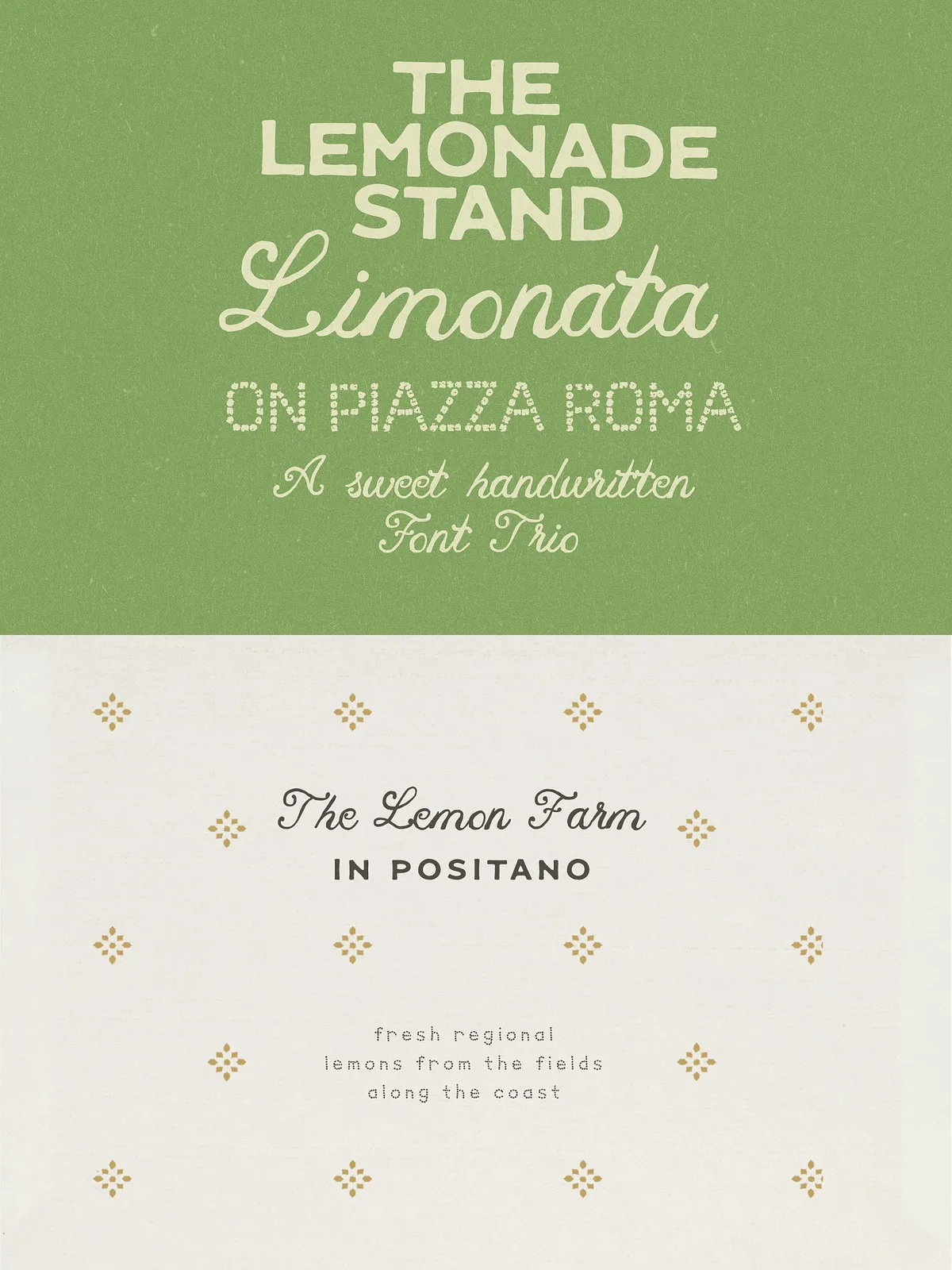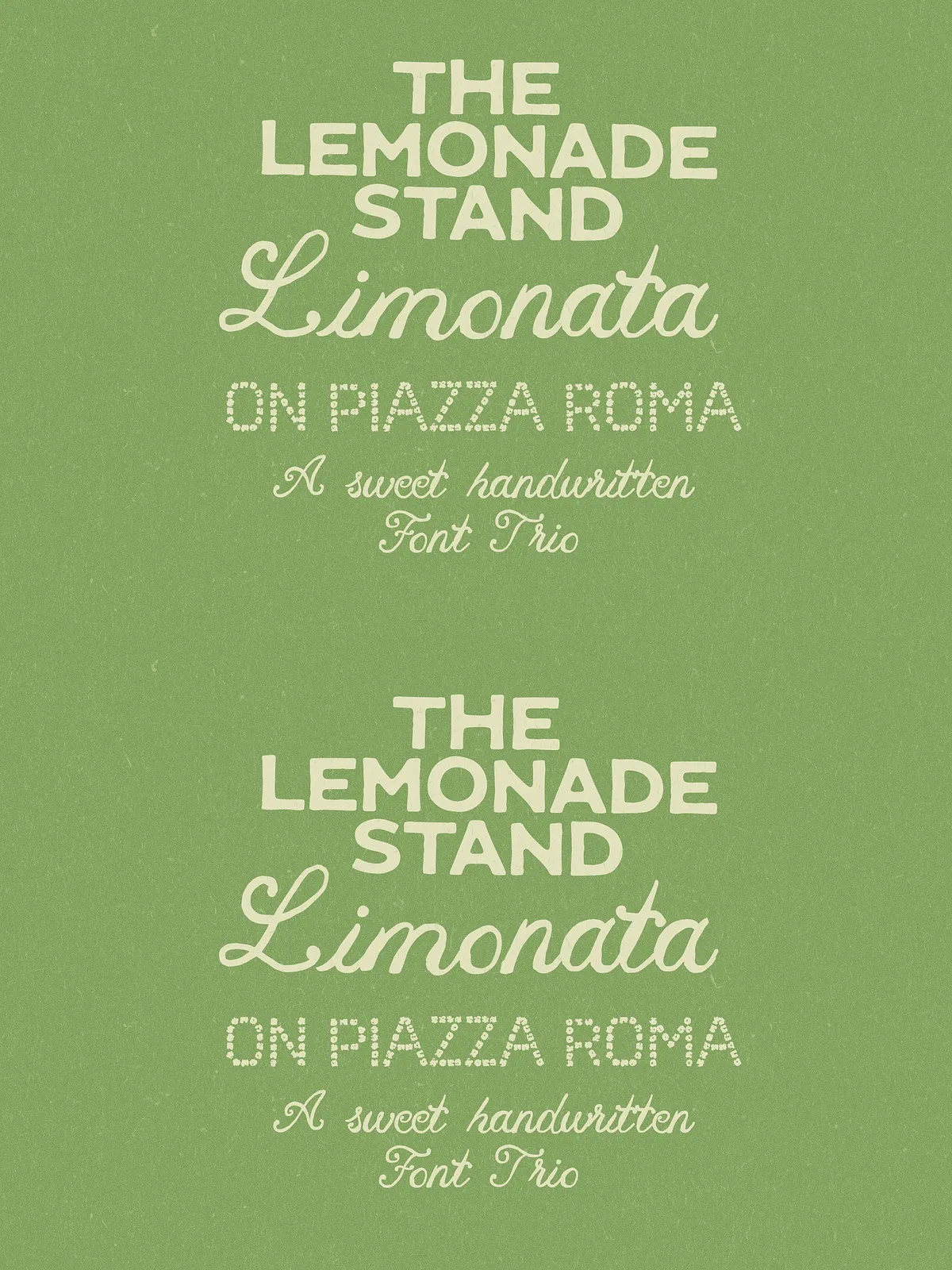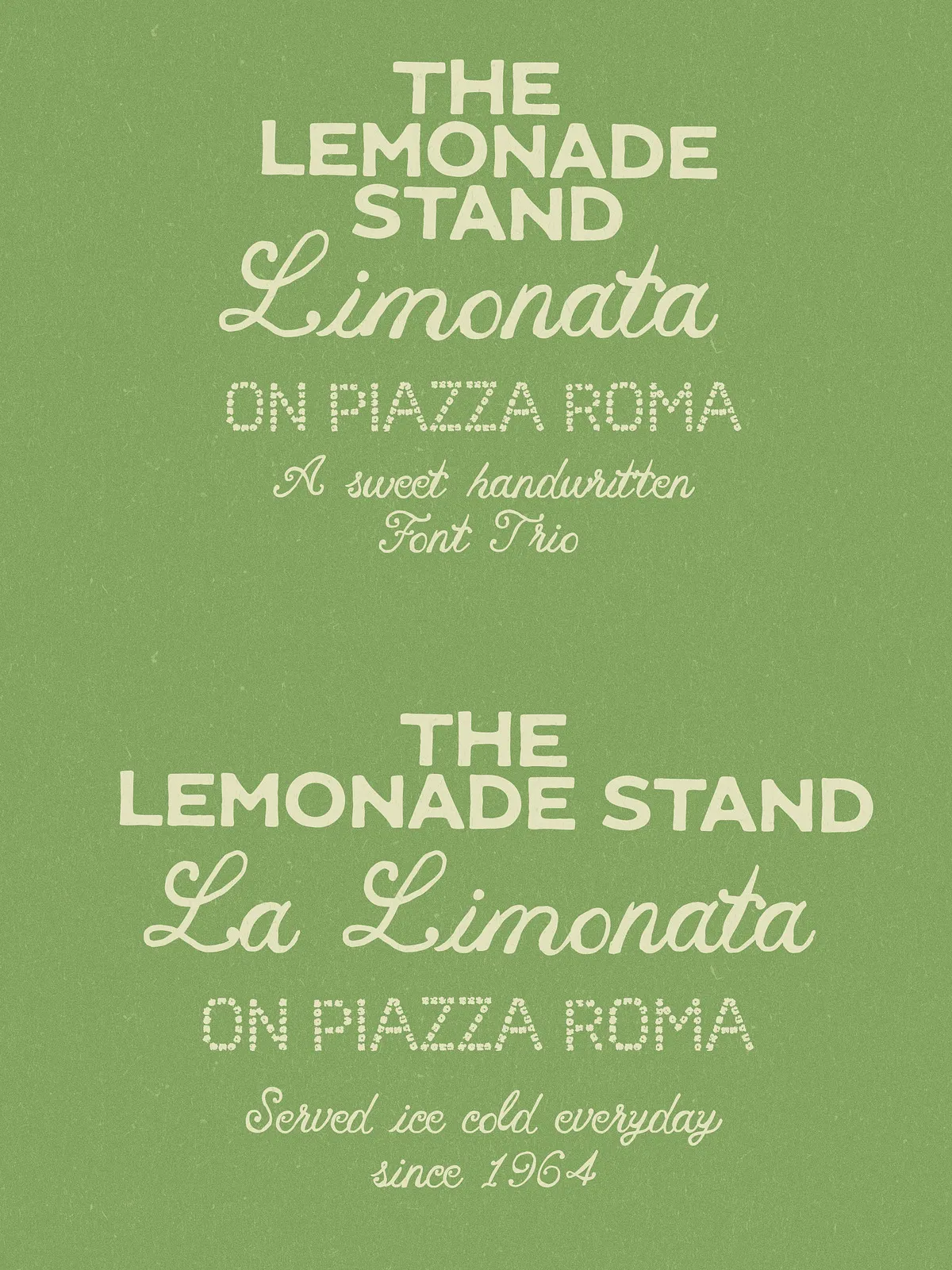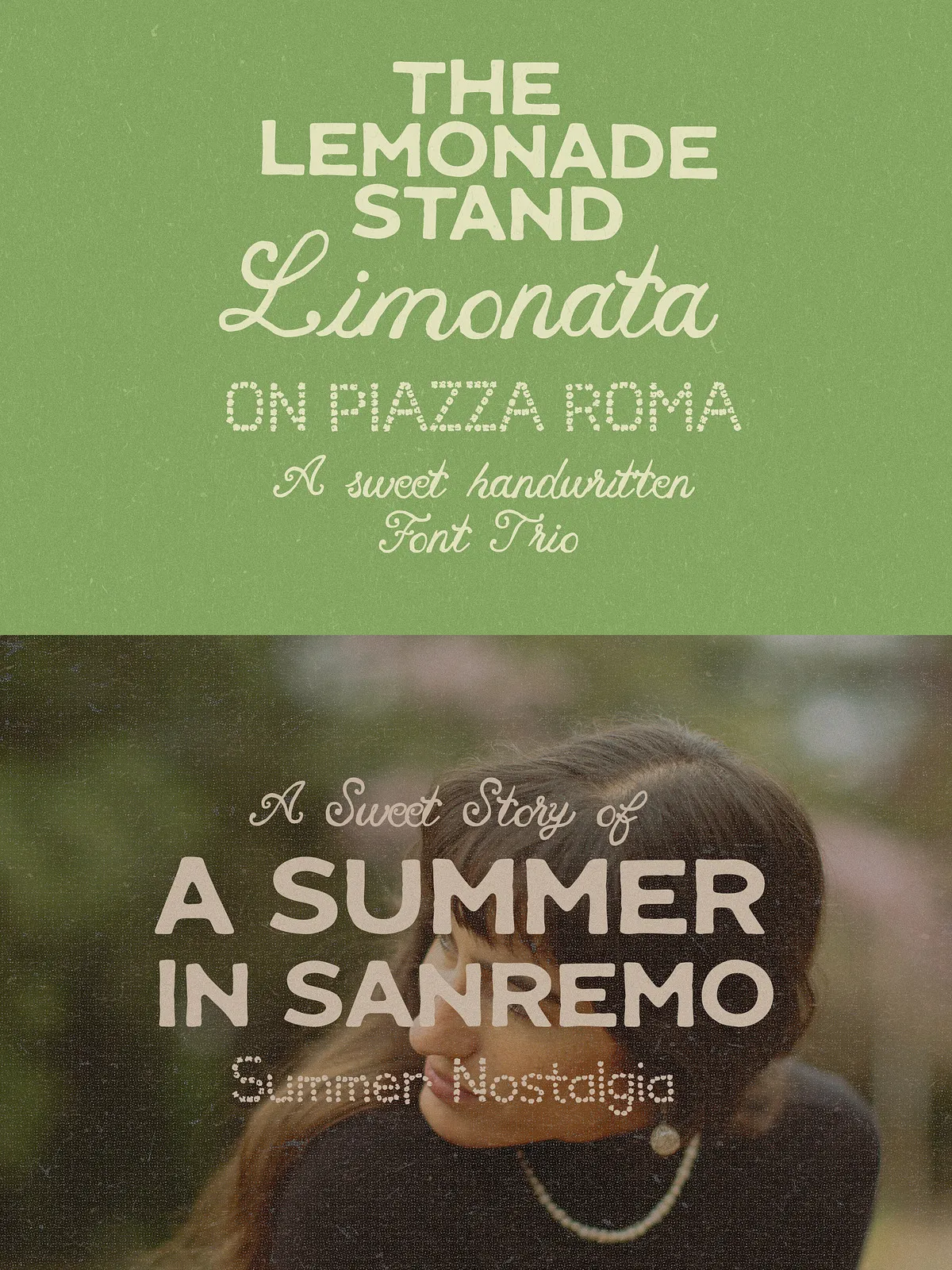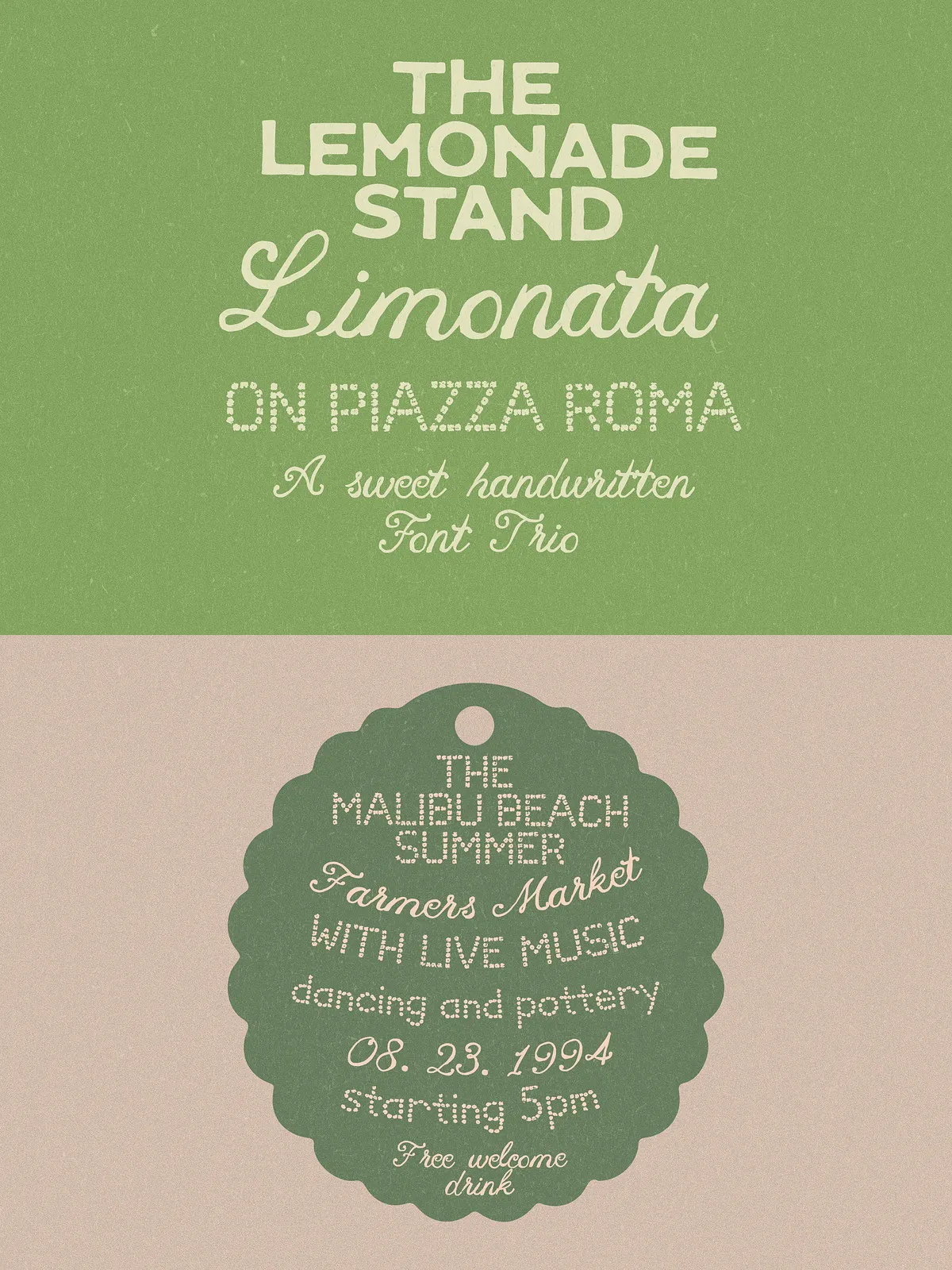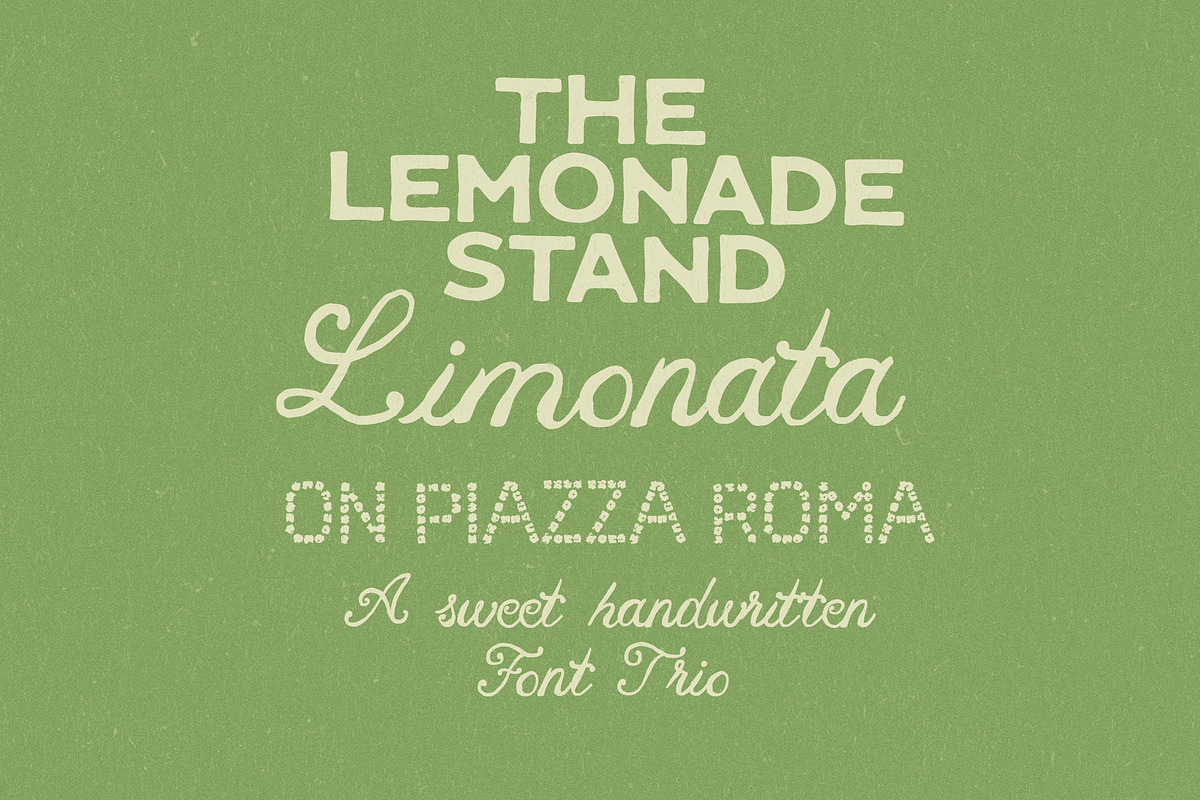
Handwritten Sign Painter Font Trio
Lemonade Stand brings a bright, nostalgic voice to your creative projects. This carefully matched trio combines a handmade sans, a sweet handwritten script, and a weathered sign-painter sans to deliver a cohesive system that reads like a sun-faded seaside sign. Use these styles together or separately to create posters, packaging, signage, and brand identities that feel both retro and freshly handcrafted.
• TheLemonadeStand.otf — a warm, handmade sans with humanist touches suitable for clean headlines and display text.
• TheLemonadeStand-Outline.otf — an outline variant that adds dimensional emphasis and pairs well with layered effects.
• Limonata.otf — a sweet, natural handwritten script that supplies friendly, expressive wordmarks and subheadings.
• MarketSign.otf — a bold, textured sign-painter sans featuring dotted/bleached styling that mimics authentic aged signage.
Design Character & Tone
Each member of the Lemonade Stand trio activates a specific mood: the handmade sans feels approachable and crafted, the script injects personality and warmth, and the MarketSign style conveys authenticity and vintage wear. Together they form a flexible palette that evokes seaside markets, gelato shops, and sunlit postcards. Designers will find the trio particularly effective when aiming for retro charm with a contemporary, usable structure.
Recommended Uses
Branding and Packaging
Compose logos and packaging layouts that combine the script with the textured sign type for high-impact headlines and product names. The clean sans works perfectly for ingredient lists, labels, and secondary information.
Signage and Environmental Graphics
MarketSign’s textured block style reads strongly at scale and reproduces convincingly on wood, canvas, and painted signage. Use the outline version to create layered signage or shadow effects that simulate real-world weathering.
Print and Digital Collateral
Create postcards, posters, menus, social assets, and shop window graphics that feel hand-crafted. The trio performs well across print and web when used at appropriate sizes — script and textured styles shine in display settings, while the sans remains legible for body or UI text.
Styling Tips & Best Practices
Pairing and Hierarchy
Let the script carry the primary emotional tone for logos or taglines, reserve the textured MarketSign for attention-grabbing headlines, and use the handmade sans for navigation, captions, and supporting text. Keep contrast high between display color and background to maintain texture visibility.
Color, Texture, and Effects
Use faded, sun-bleached palettes, warm pastels, and tactile textures (paper grain, wood, paint) to reinforce the vintage aesthetic. For modern applications, layer the outline version over soft gradients or photographic backgrounds to create depth without heavy effects.